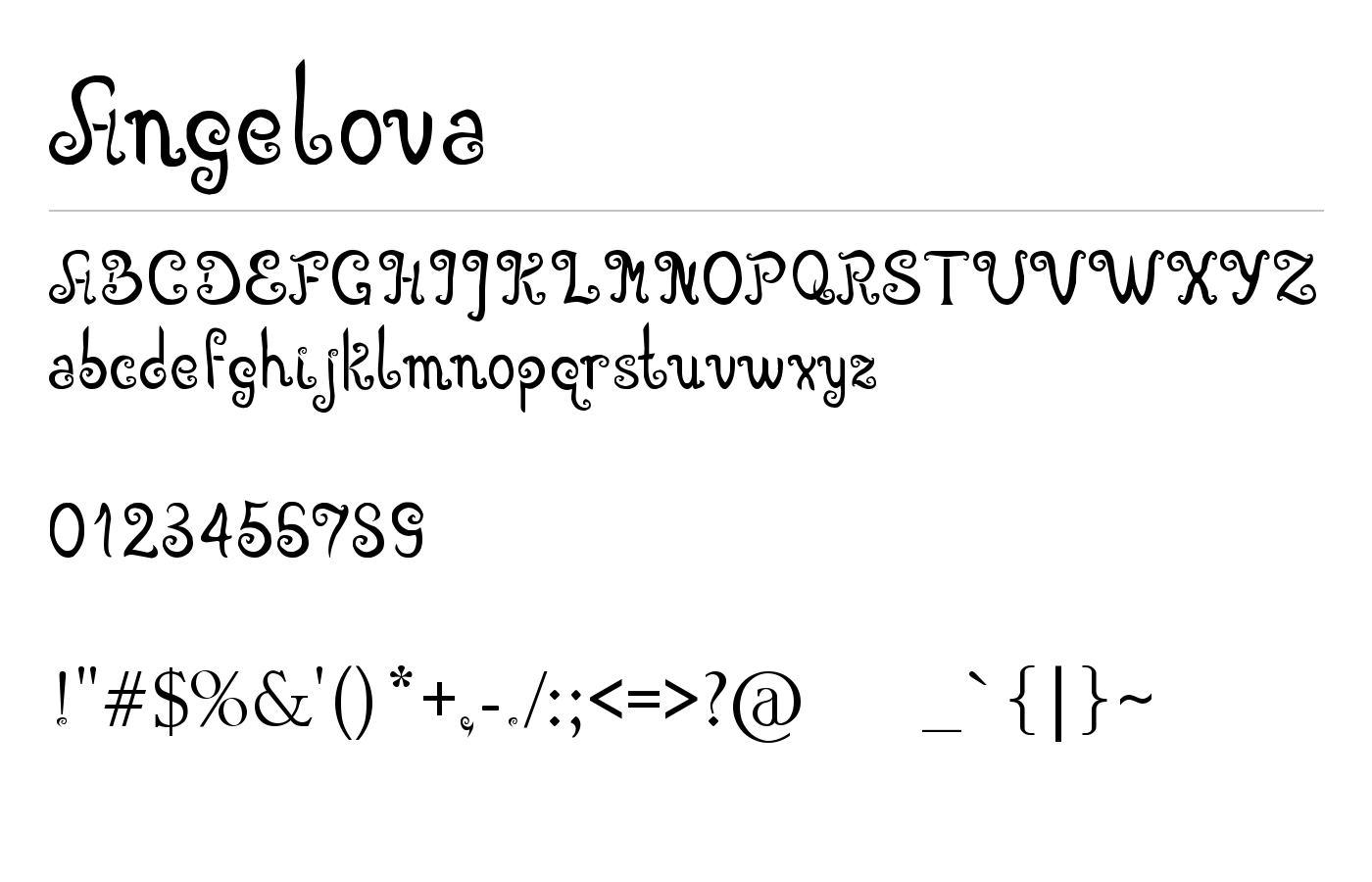
Angelova is a whimsical serif font featuring decorative, curly details that give it a playful and unique character. With its medium weight, upright posture, and a mix of single and double-story letterforms embellished with quirky curls, it suits creative, fun projects such as invitations, children’s books, or artisanal branding where a lighthearted, artistic vibe is desired. This font’s distinctive style makes it ideal for eye-catching headlines and decorative text rather than extended body copy.
Angelova Font
About Angelova Font